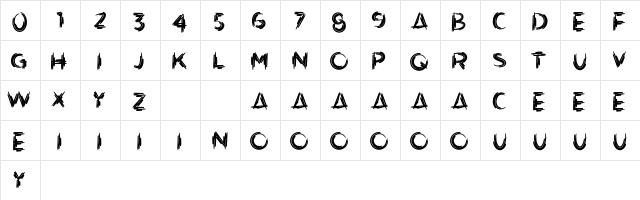
Artistik Demo Versio Regular
| Designer | Sigit Dwipa |
Artistik Demo Versio is a composed and adaptable typeface that performs quietly and consistently across a wide range of design contexts.